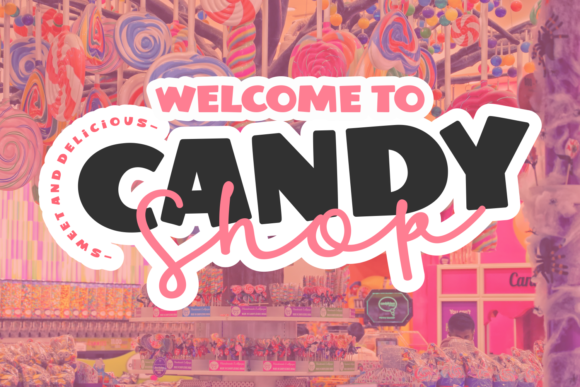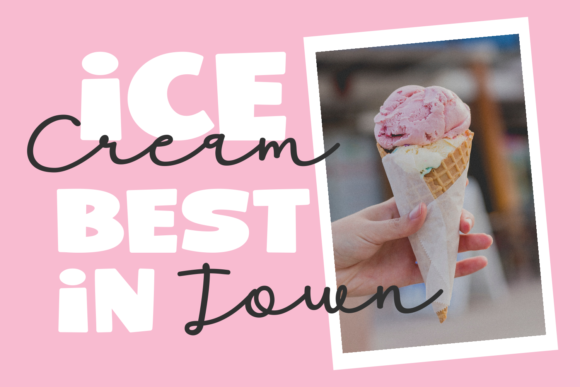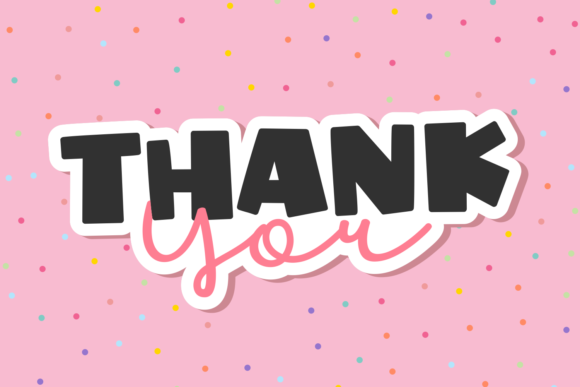
About Cute Candy Font
Cute Candy is a lovely duo font (sans serif and script). Incredibly versatile, this font fits a wide pool of designs, elevating them to the highest levels. Add this font to your favorite creative ideas and notice how it makes them come alive!